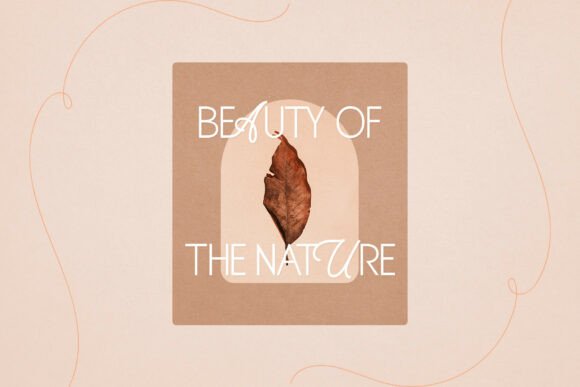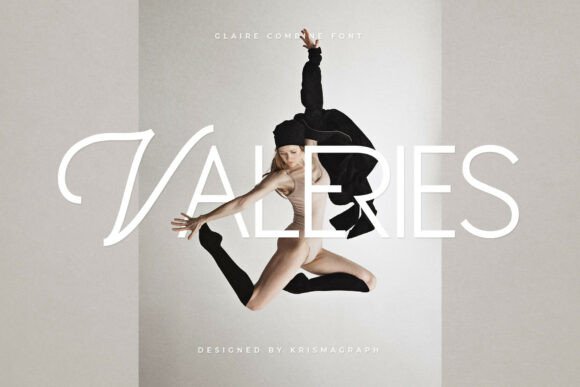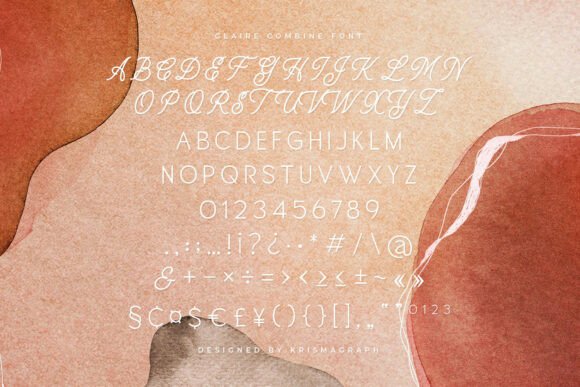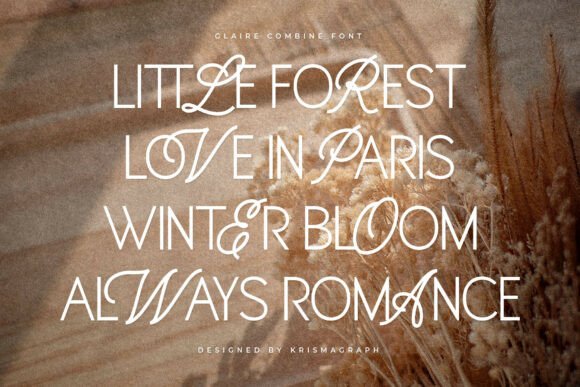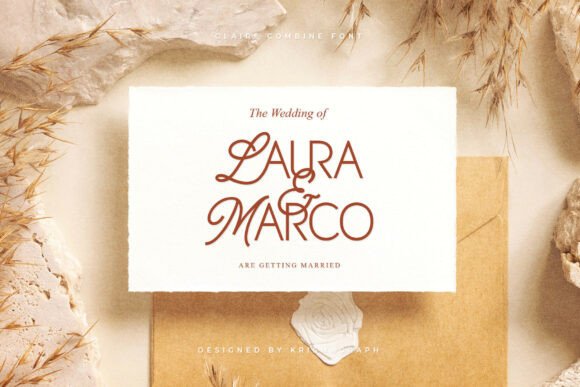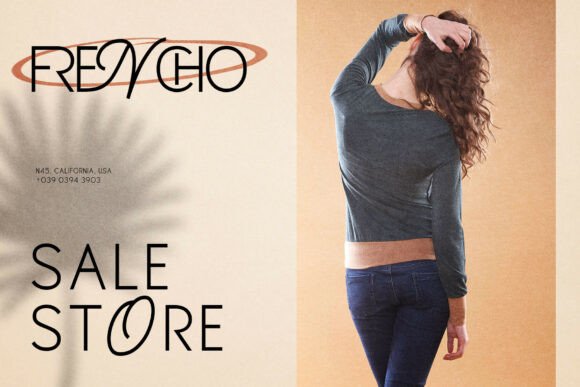
Discover the Elegance of Glaire Font: A Perfect Blend of Script and Sans
In the world of typography, finding the perfect font that combines elegance, uniqueness, and versatility can be a daunting task. However, if you’re looking for a font that can elevate your design projects, look no further than the Glaire Font. This beautiful and inspiring combination of script and sans with unique ligatures is designed to make your headlines, titles, and short texts stand out.
What Makes Glaire Font Special?
Glaire Font is crafted mainly for use in headlines, titles, and other short texts, making it an ideal choice for a variety of design projects. Its unique blend of script and sans elements gives it a distinctive look that can add a touch of sophistication and elegance to any design. Whether you’re working on advertising, vintage mood boards, branding, logotypes, packaging, titles, editorial design, modern logos, websites, social media quotes, wedding branding, or modern and vintage design, Glaire Font is well-suited to meet your needs.
Key Features of Glaire Font
- Multilingual Support: The font includes support for multiple languages, making it a versatile choice for designers working on international projects.
Tips for Using Glaire Font
To get the most out of Glaire Font, here are a few tips:
- Use it for headlines and titles: Glaire Font is designed specifically for use in headlines and titles, so take advantage of its unique ligatures and stylish look.
- Experiment with different sizes: Glaire Font looks great at a range of sizes, from small titles to large headlines.
- Pair it with other fonts: Try pairing Glaire Font with a sans-serif font for a modern look, or with a serif font for a more traditional feel.